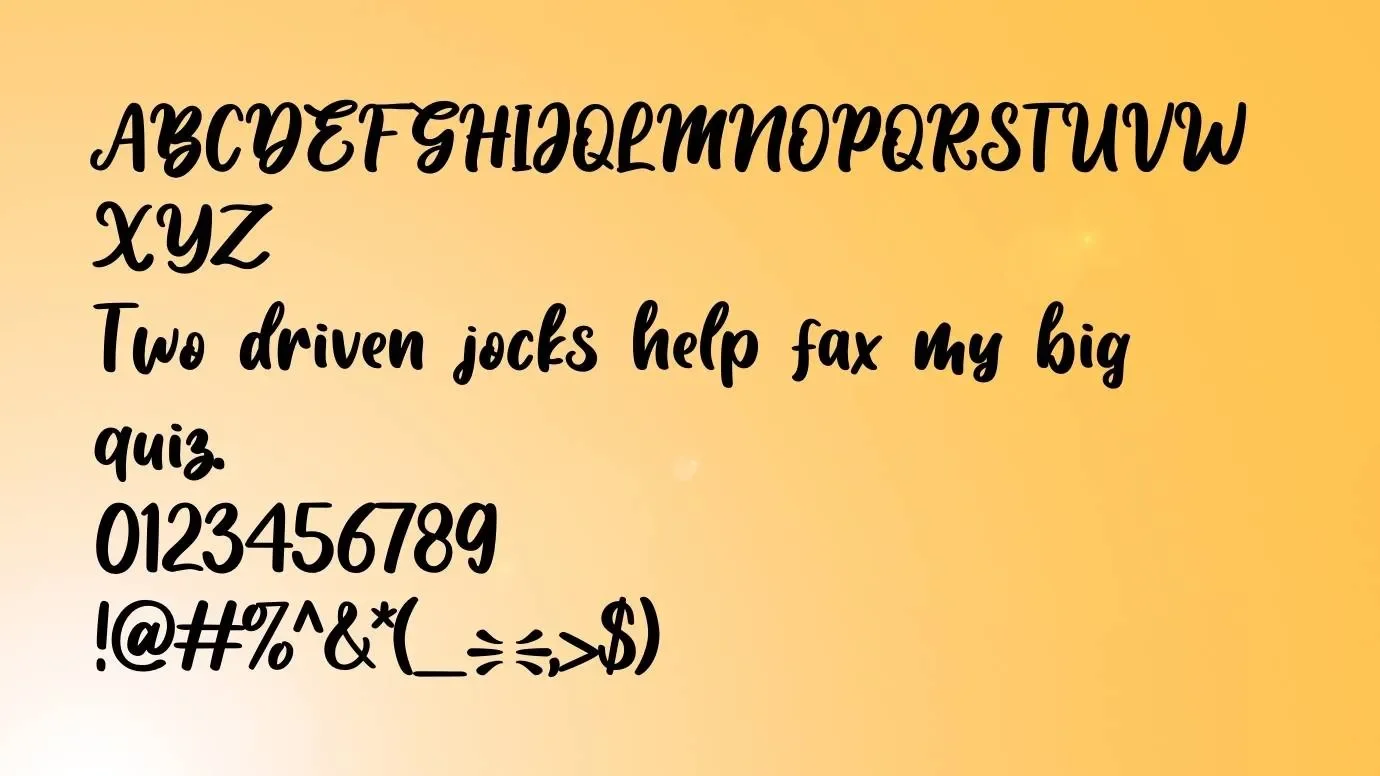
Introducing Hello Sunshine Font, this is a marvelous script typeface with flowing handwritten lettering. It has romantic and delicious swashes. This font family was created and released in 2015 by Nailetter. This design would be great for a wide range of crafty ideas, from titles to letterheads and to stationeries products. You can access its all glyphs and washes easily due to its PUA encoded.
You will love its timeless styles and unbelievable distinct, so use it for high-quality designs. This font family has medium widths and comes in four weights including Regular, Italic, Marker Regular, and Ornaments Regular. Each weight comprises lovely characters, which are uppercase, lowercase, numerals, basic punctuations, and currency symbols.
Reason to Use Hello Sunshine Font
This is a sweet script typeface designed with the strokes of using a brush and it has a casual and yet elegant touch that would be the best font for designing logos, wedding cards, invitation cards, signage, t-shirt and clothes designs, posters, banners, brochure layouts, website templates, themes, labels, badges, brands, stationeries, sports products, brands and many more.
Due to its multiple language support, ligatures, and stylistic alternates, this font has been used in a wide range by designers. In addition, it will definitely give a romantic touch to your headlines and titles as well as letterheads, Powerpoint presentations, menus, quotes, and many more. You can also utilize this font for creating super-quality reports, articles, assignments, thumbnails, invoices, and so on.
Hello Sunshine Font View
Hello Sunshine Font Family (Includes Total 4 Typeface)
- Hello Sunshine Regular
- Hello Sunshine Italic
- Hello Sunshine Marker Regular
- Hello Sunshine Ornaments Regular
Where can we use Hello Sunshine Font?
This font is suitable for a huge range of designs, from letterheads to headlines and titles and from logos to branding projects. Its Opentype features also would be used in various programs such as Adobe Illustrator CS, Indesign, and CorelDraw X6-X7, Windows 2010, or in the latest versions.
What font is Hello Sunshine font?
This is an ornamental and decorative script typeface family that was designed by Nailetter. It has high-quality Opentype features, glyphs, and swashes. This font family has four weights including Regular, Italic, Marker Regular, and Ornaments Regular.
Is there any similar font to the Hello Sunshine Font?
Can I use Hello Sunshine font for my logo design?
Surely, you can use this font for making lovely and romantic logo designs for your website, brand, company, and for many other purposes.